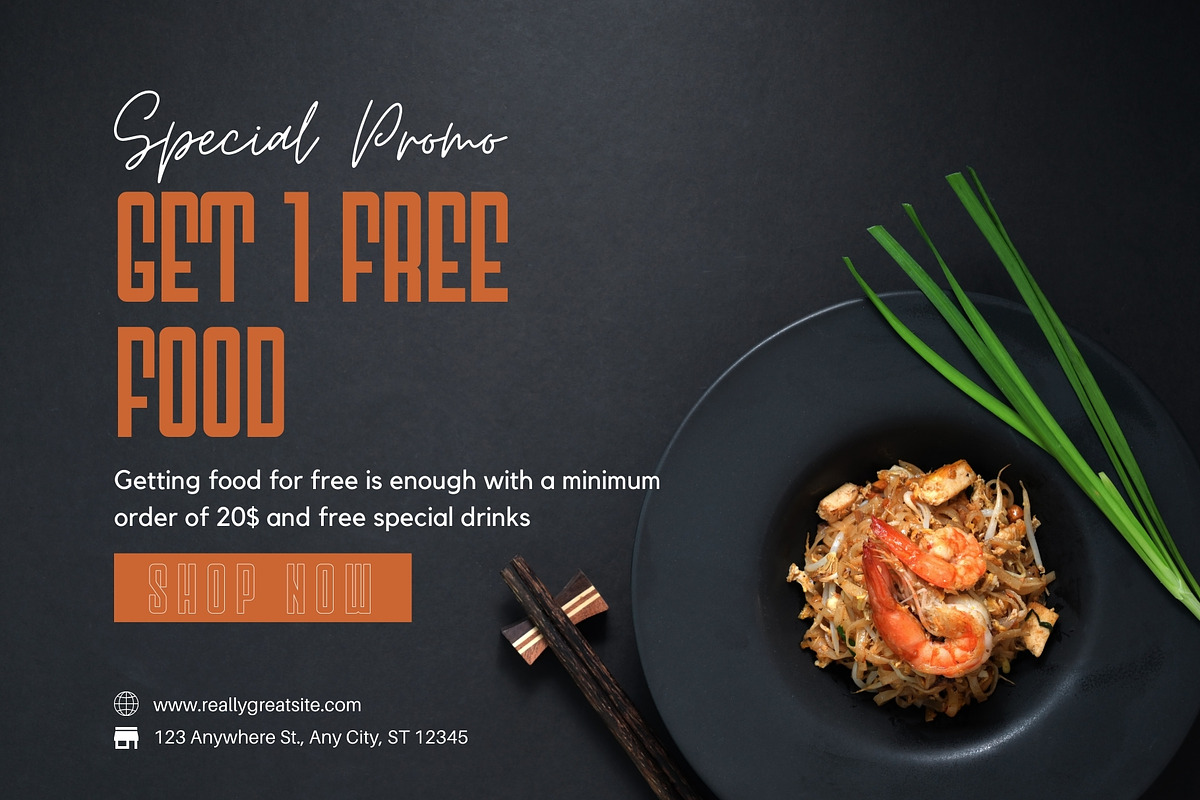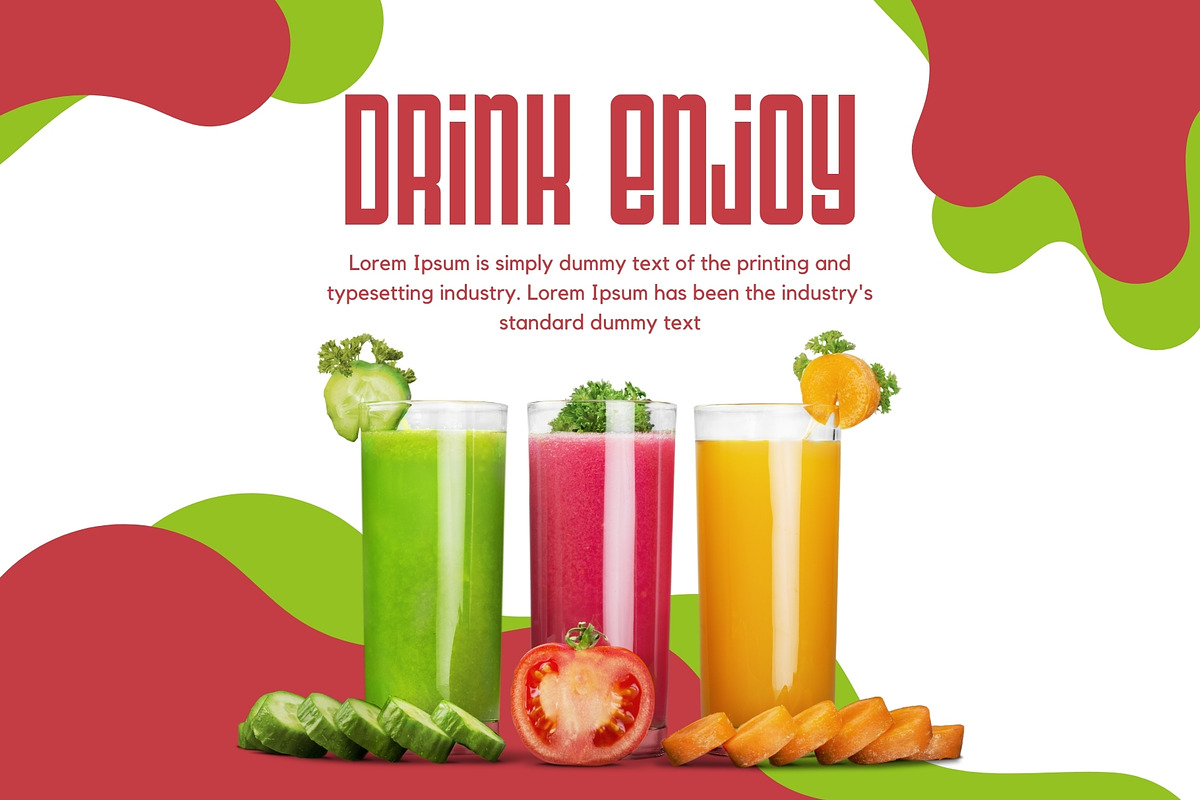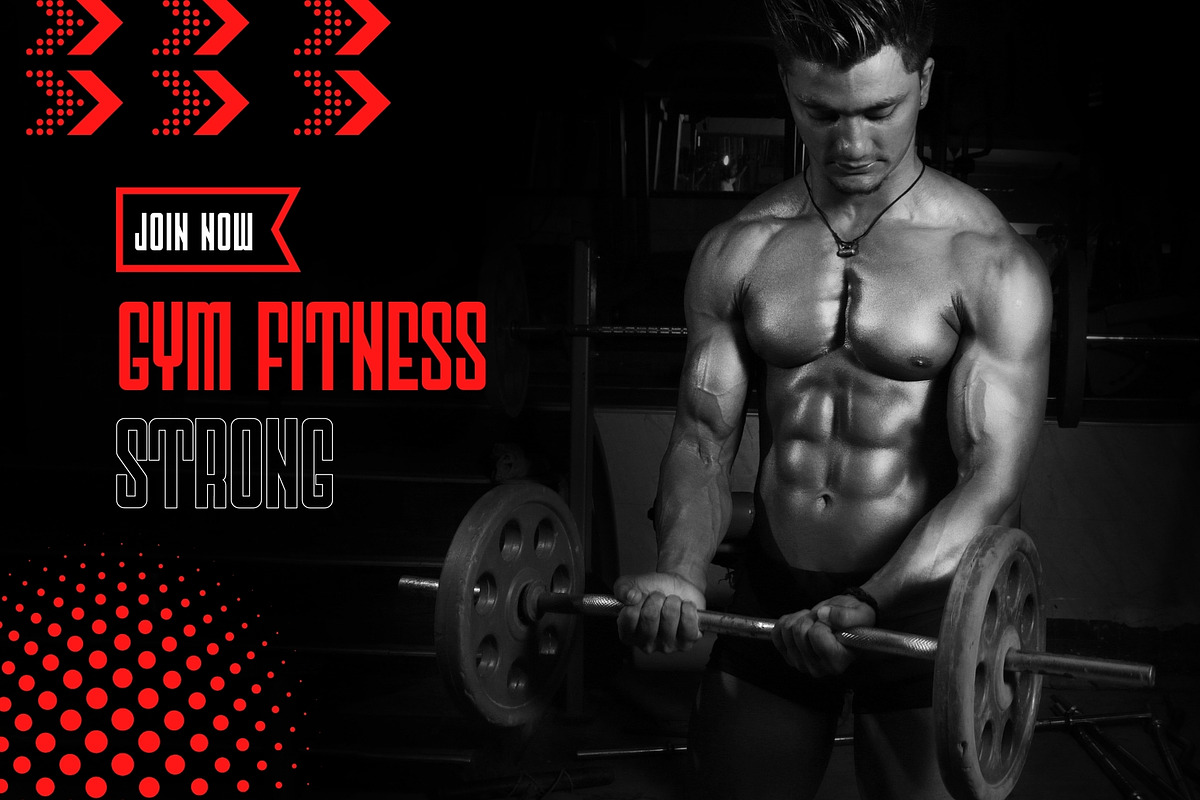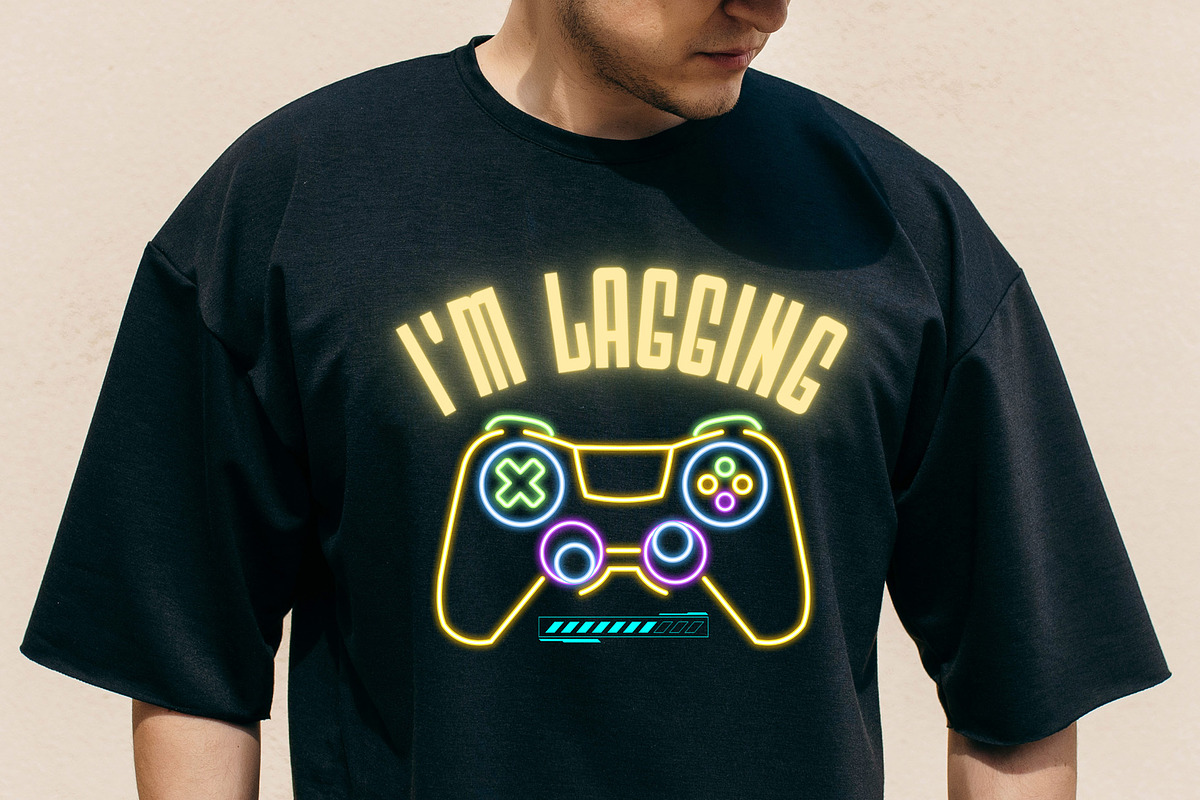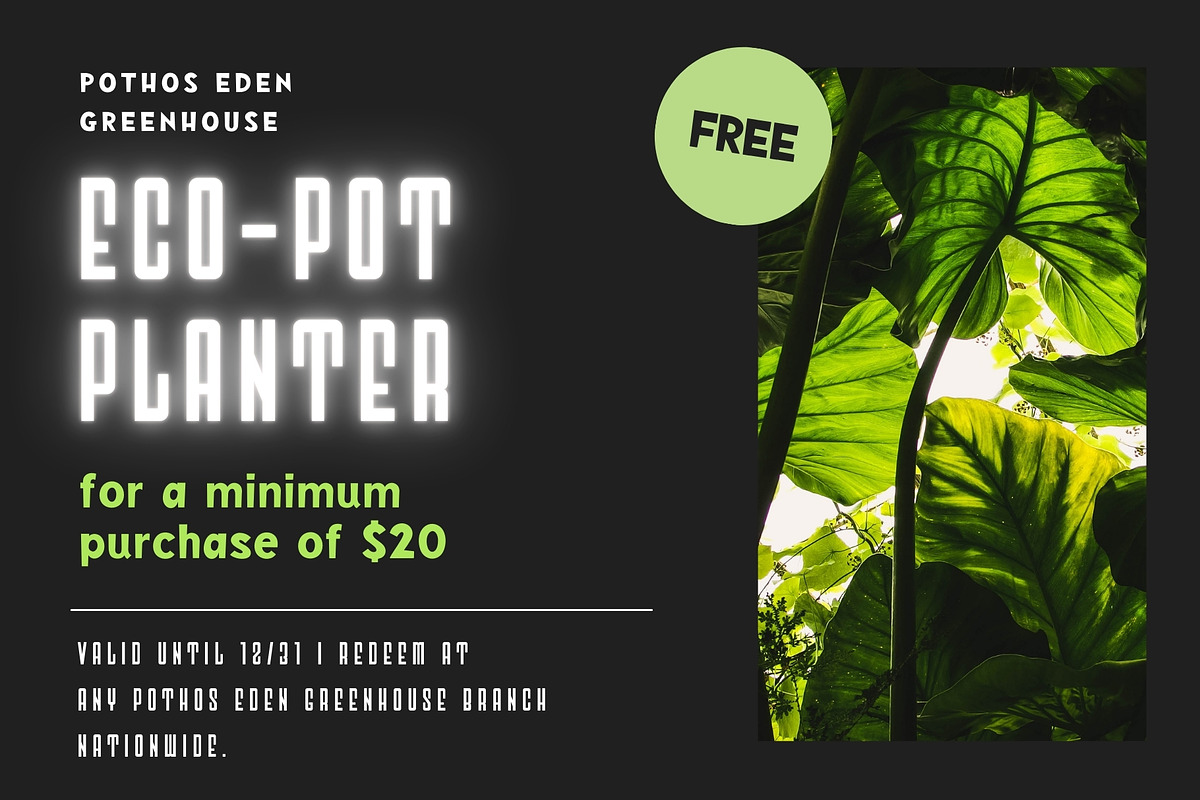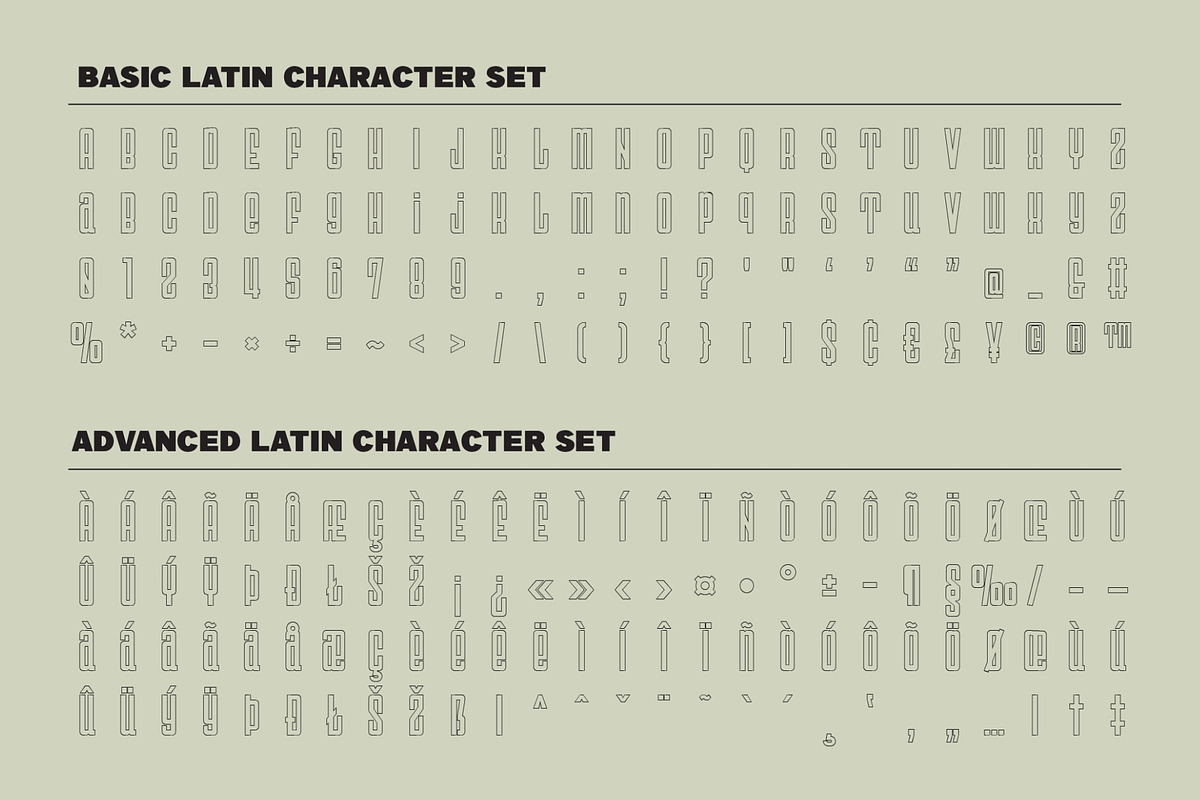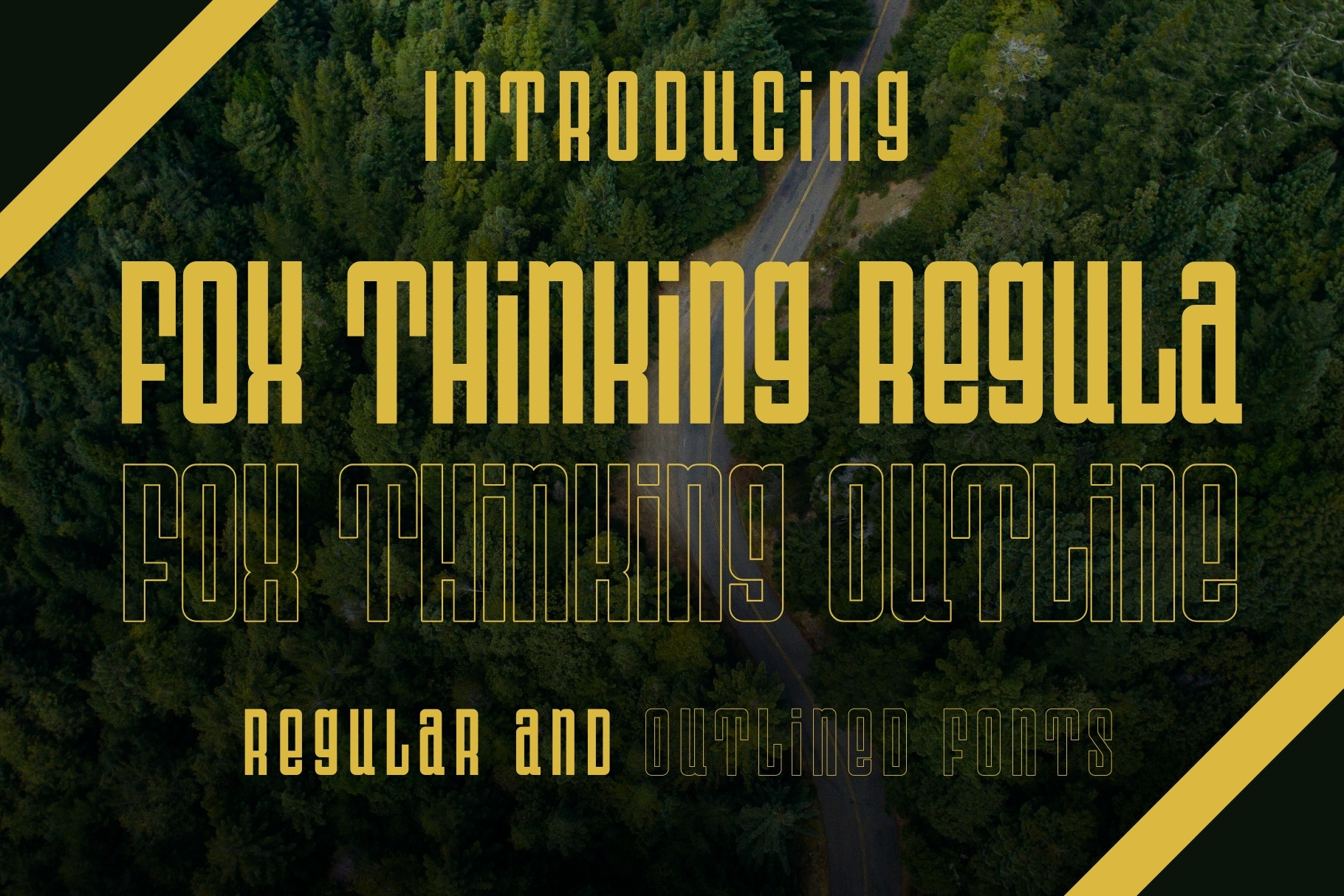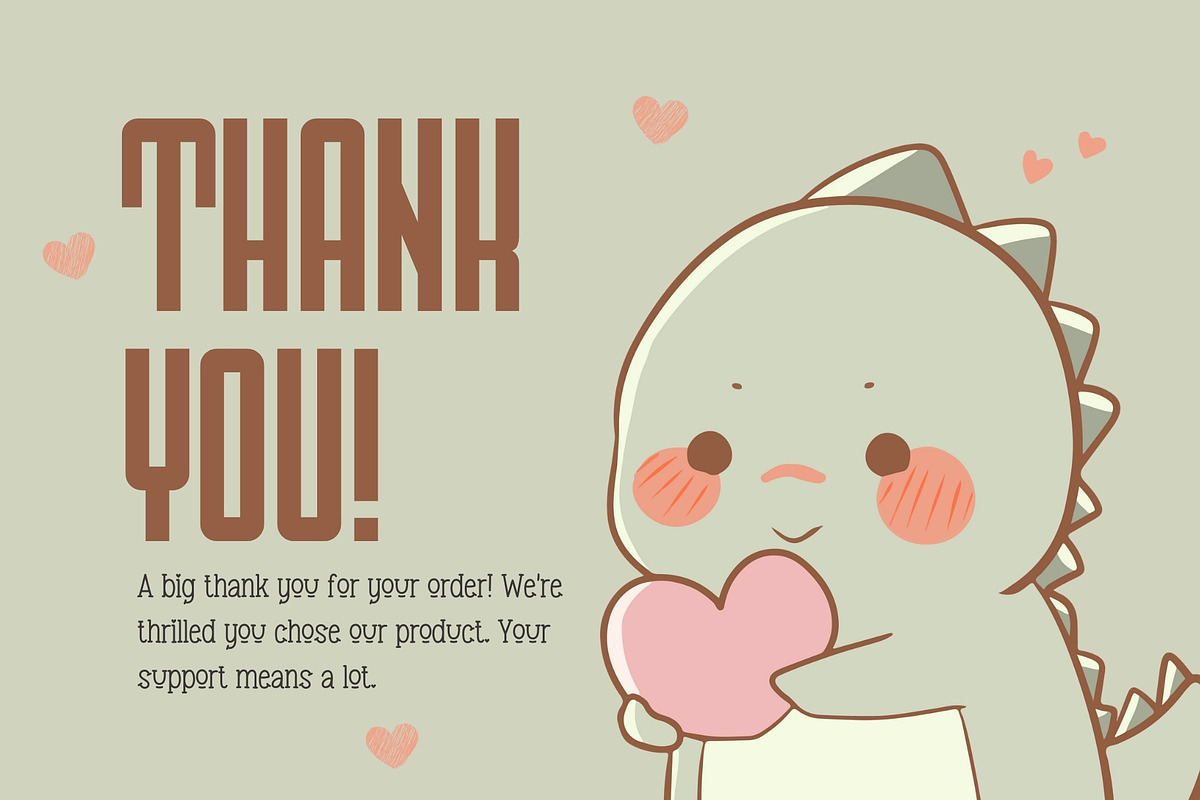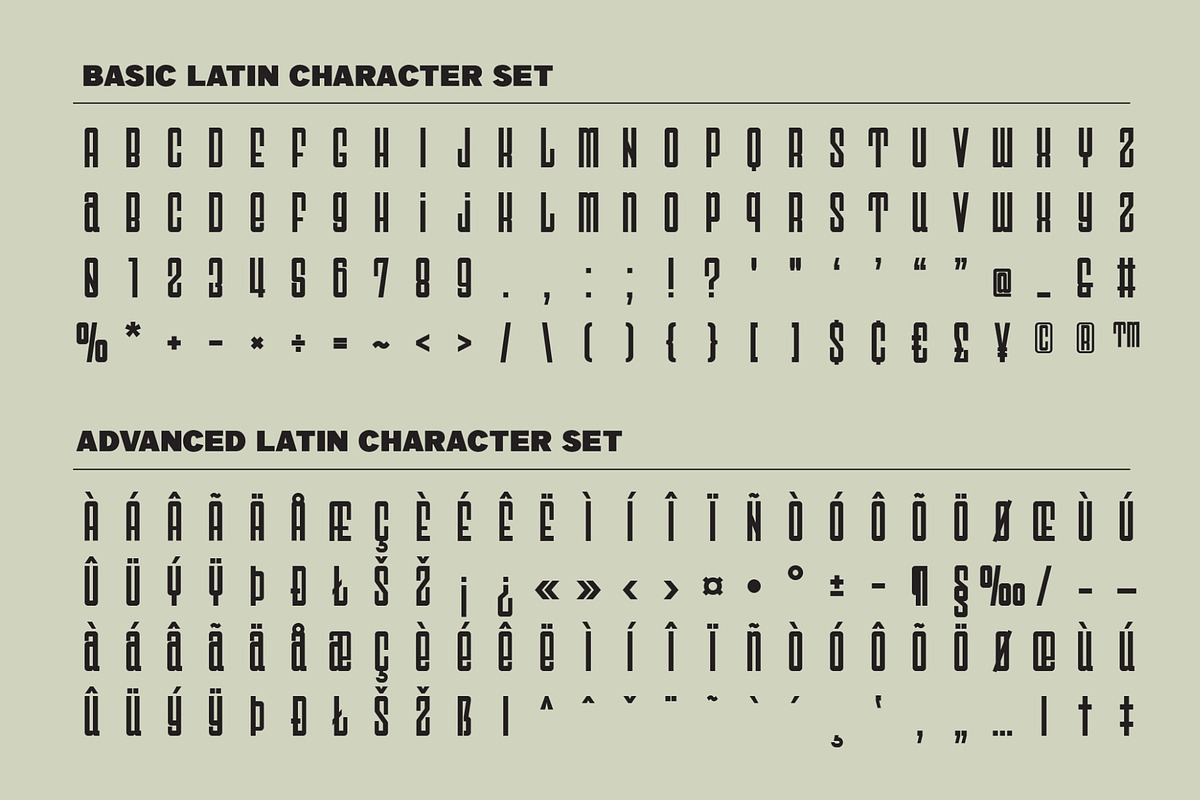
Fox Thinking Fonts
Fox Thinking is a cool and Outstanding slab serif font. This font offers both regular and outlined variations, this font is perfect for publications, logos, business cards, or printed on t-shirts, this font will look outstanding on everything, no matter the topic. This font will be an incredible asset to your fonts’ library, as it has the potential to elevate any creation.